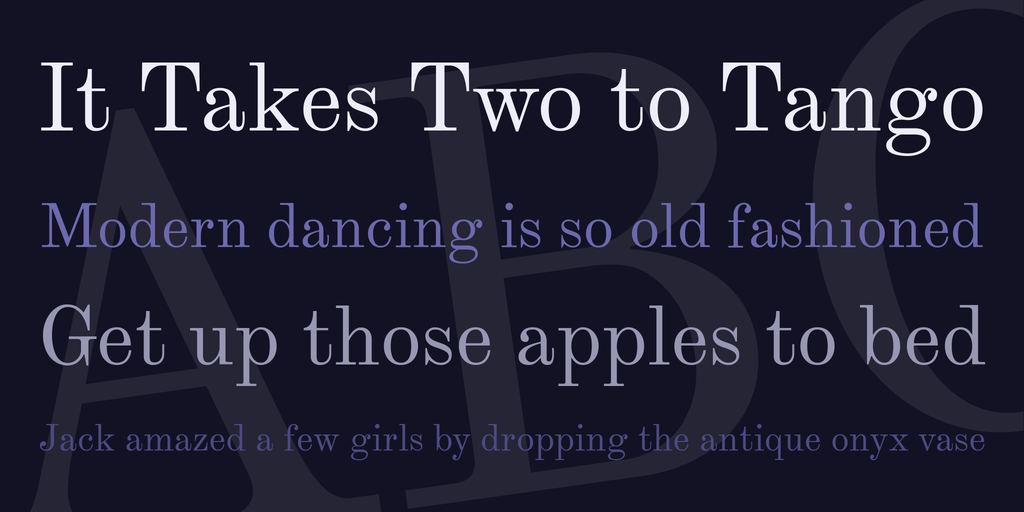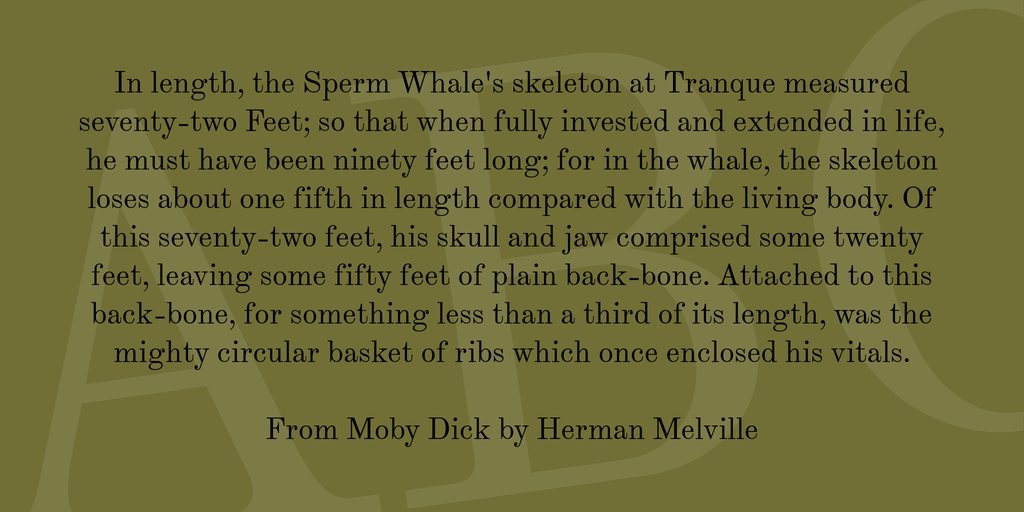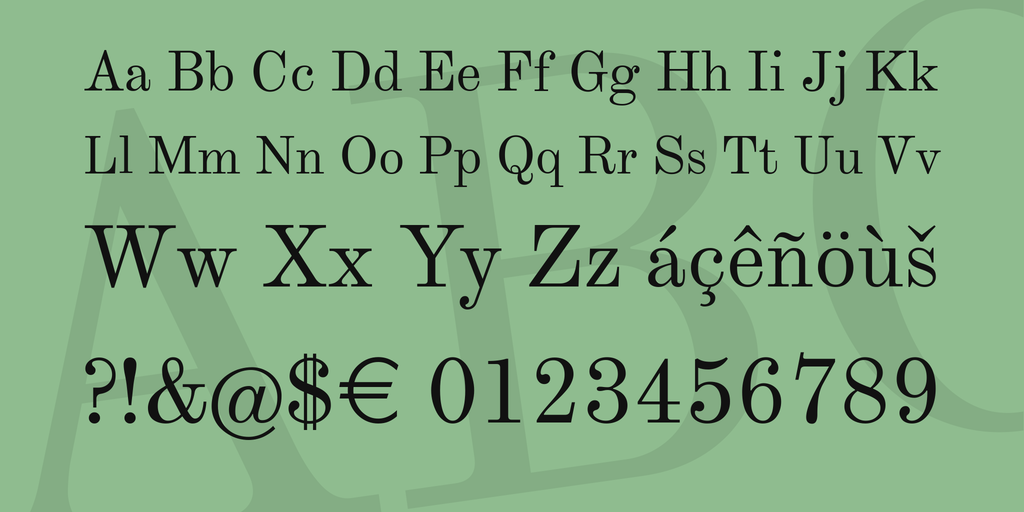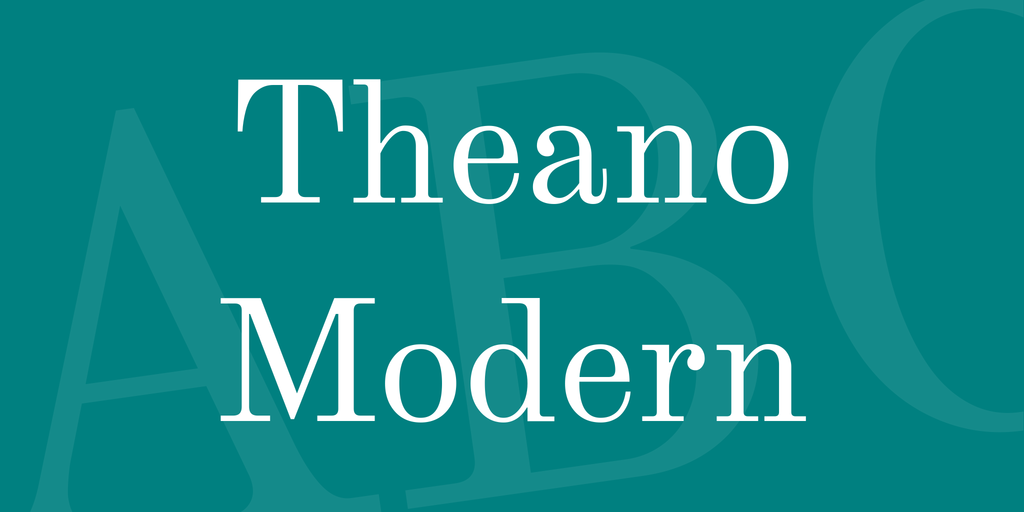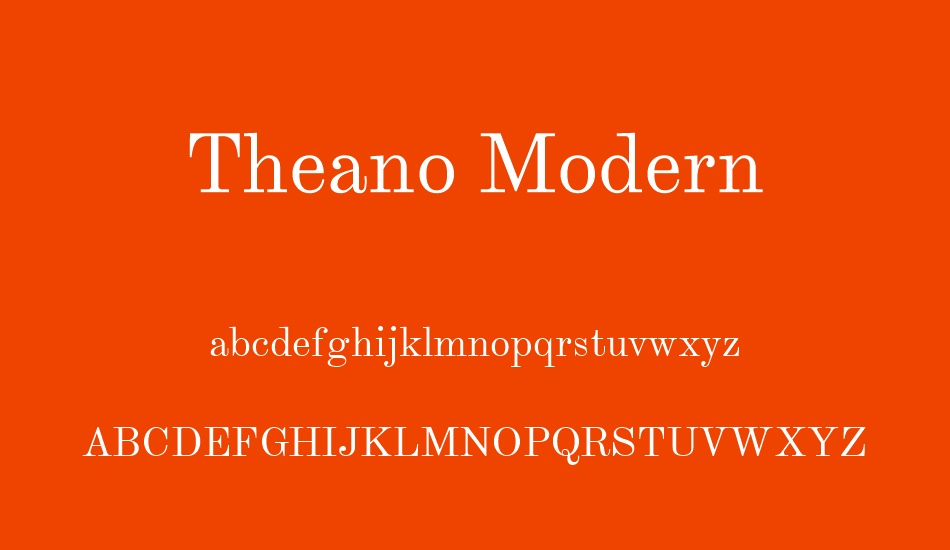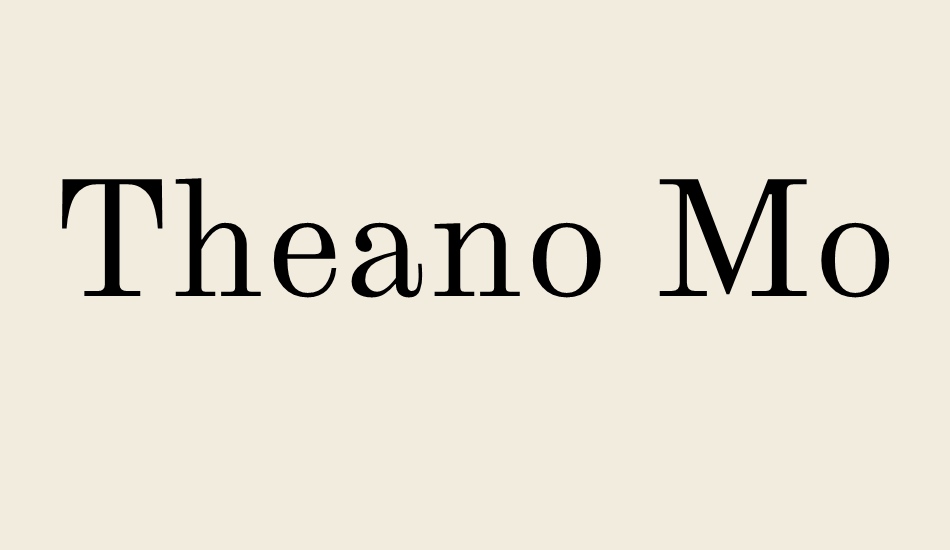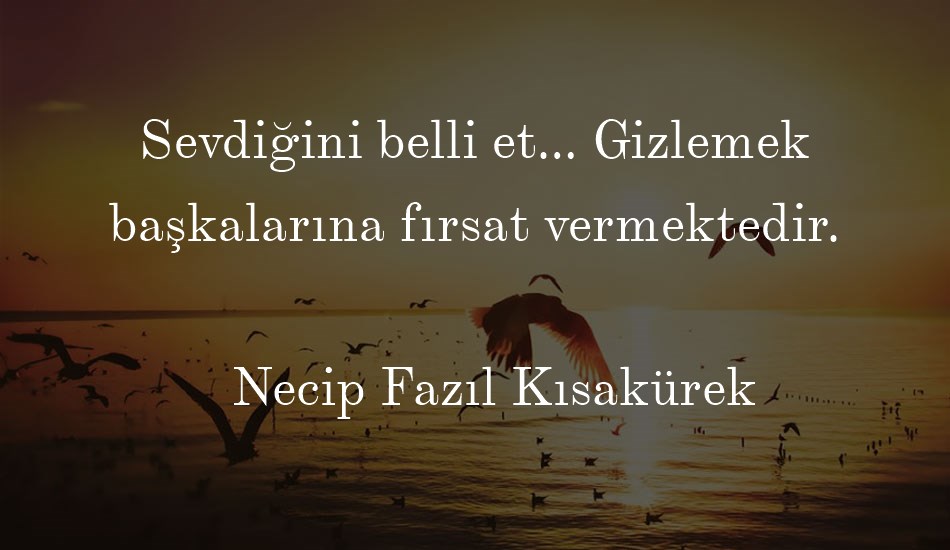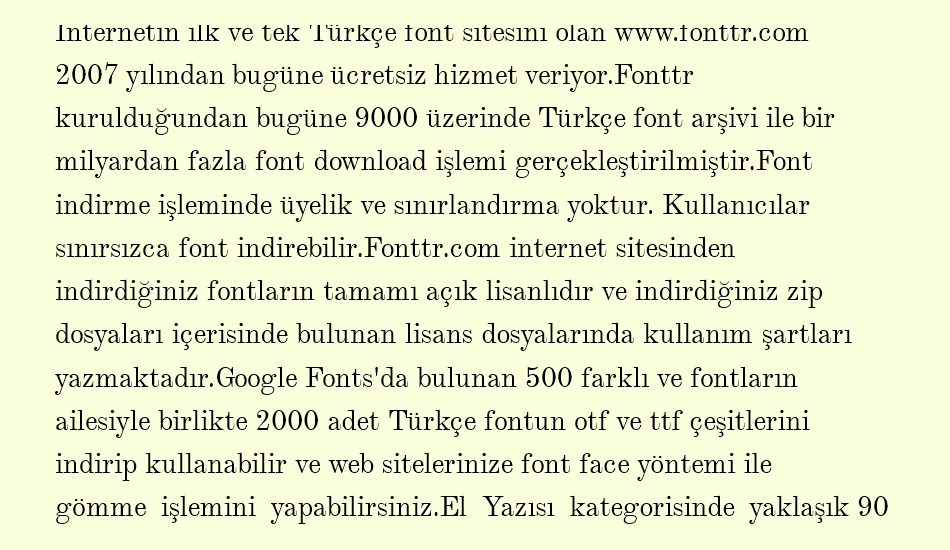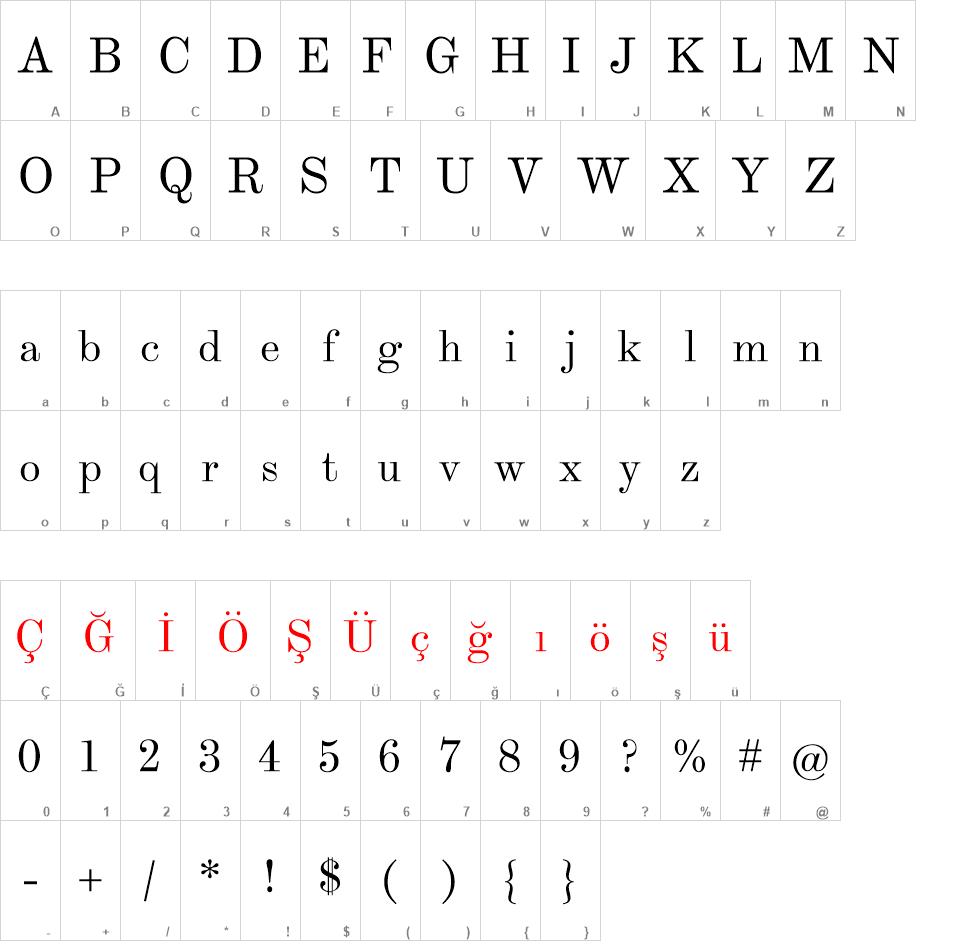
Theano Modern
Theano is a common name for some fonts I have designed from historic samples. Most of these fonts were initially intended as Greek-only faces, but finally I found it interesting to supplement them with stylistically compatible Latin letters, thus reproducing the general look of old classical text editions. For this reason Theano fonts currently have no additional weights or styles and don't provide extensive Unicode coverage: just a standard set of Latin, Greek and Cyrillic characters (including the full polytonic set for Greek) and some additional characters I found interesting to design. Nevertheless I decided to make them publicly available in the hope they can be useful for other classicists or medievalists.
Theano Modern font